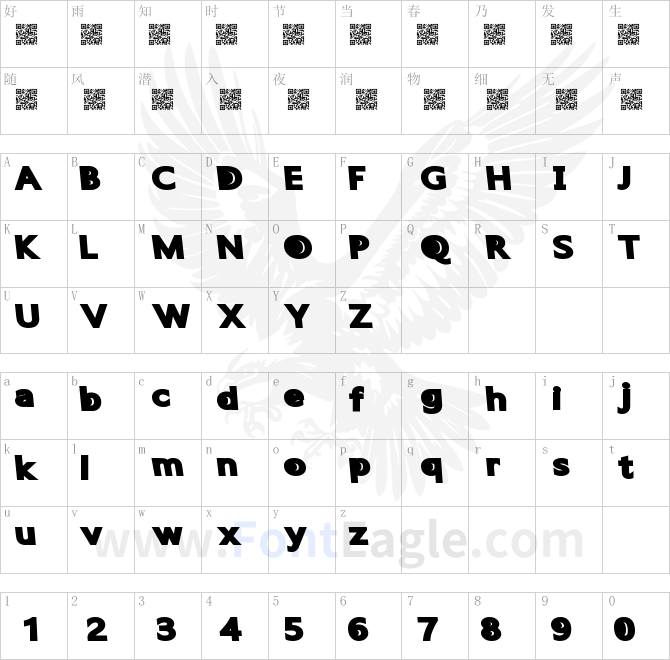
QuantumFuture is a great font, widely used in graphic design, single-page menu design, poster design and other fields, and is deeply loved by designers.QuantumFuture download.